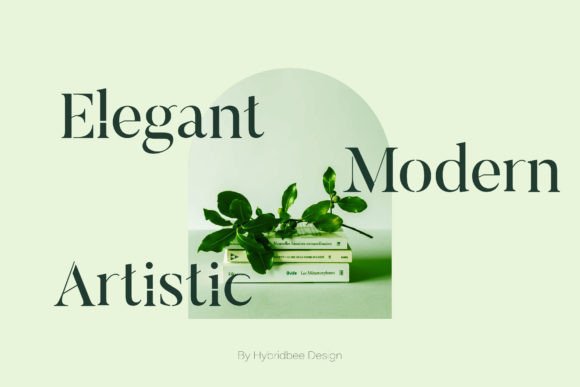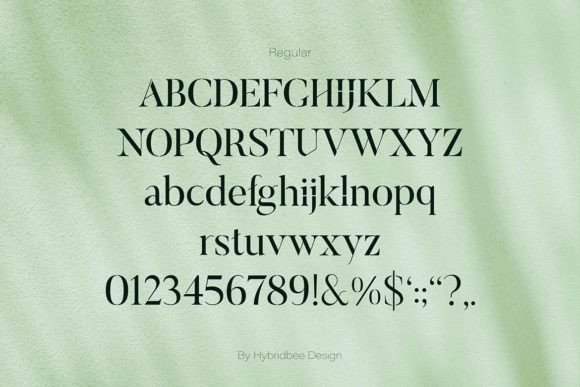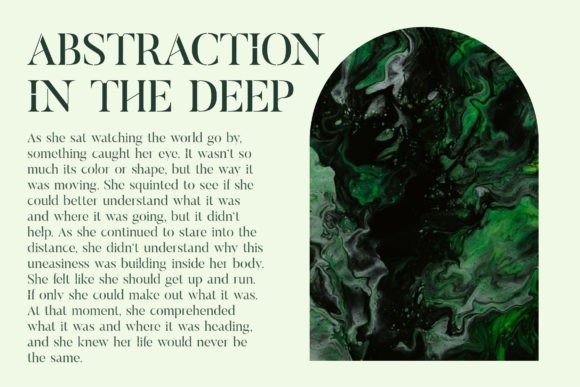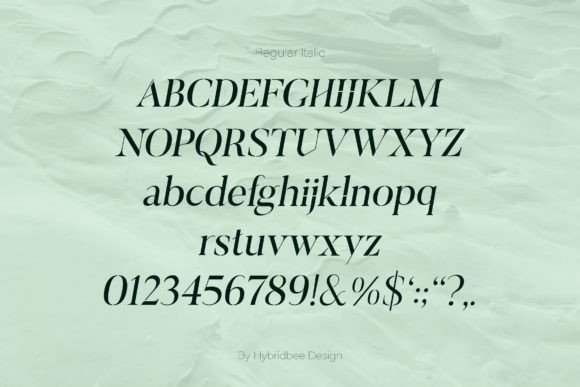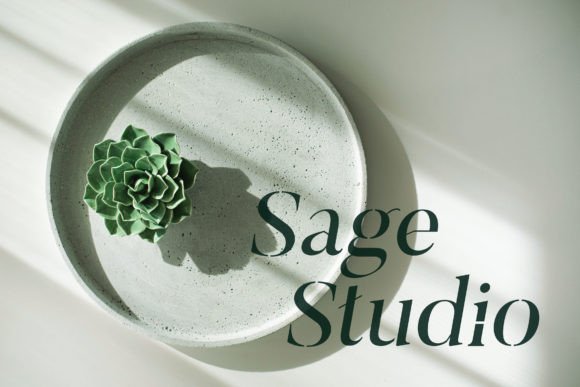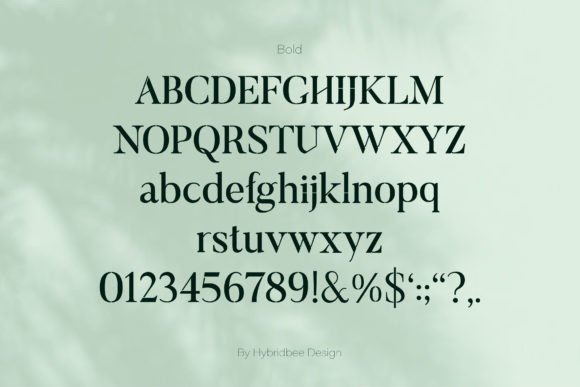
Introducing Elayne Font: Elevate Your Designs with Modern Sophistication
In the world of typography, fonts play a crucial role in conveying the tone and personality of a design. For designers and crafters seeking a modern, sophisticated, and artistic edge, Elayne Font is an exceptional choice. This display serif font boasts a minimalist and elegant style, making it perfect for a wide range of applications, from posters and headlines to branding, packaging, logos, and web design.
What Makes Elayne Font Stand Out?
Elayne Font’s unique blend of modernity and sophistication sets it apart from other fonts. Its display serif characteristics add a touch of elegance, while its minimalist approach ensures that the font remains clean and uncluttered. This balance of style and simplicity makes Elayne Font an excellent choice for designers looking to create visually stunning designs that exude refinement.
Key Features of Elayne Font
- Modern and Sophisticated: Elayne Font’s sleek design makes it perfect for projects that require a contemporary look and feel.
- Minimalist and Elegant: The font’s clean lines and simple shapes create a sense of elegance, ideal for high-end branding and design projects.
- Display Serif: Elayne Font’s serif characteristics add a touch of sophistication, making it suitable for headlines, titles, and other display text.
- Versatile: This font can be used for a wide range of applications, including posters, branding, packaging, logos, web design, and more.
Use Cases for Elayne Font
Elayne Font’s versatility makes it an excellent choice for various design projects. Here are some use cases where this font truly shines:
- Posters and Flyers: Elayne Font’s bold and elegant style makes it perfect for creating eye-catching posters and flyers.
- Branding and Logo Design: The font’s sophisticated and modern look makes it an excellent choice for branding and logo design projects.
- Packaging Design: Elayne Font’s clean and minimalist style makes it suitable for packaging design, particularly for luxury brands.
- Web Design: This font can be used to create stunning website headers, titles, and other display text.
Tips for Using Elayne Font Effectively
To get the most out of Elayne Font, follow these tips:
- Pair with Other Fonts: Combine Elayne Font with other fonts to create a unique and visually appealing typography.
- Experiment with Sizes: Play with different font sizes to create a hierarchy of text and add emphasis to important information.
- Use for Headlines: Elayne Font is perfect for headlines and titles, so use it to create attention-grabbing text.
Elayne Font is a stunning display serif font that offers a modern, sophisticated, and artistic edge. Its minimalist and elegant style makes it perfect for a wide range of design projects, from posters and branding to packaging and web design. With its versatility and unique characteristics, Elayne Font is an excellent addition to any designer’s toolkit.
Whether you’re a seasoned designer or a crafty DIY enthusiast, Elayne Font is sure to elevate your designs and help you create visually stunning projects that exude refinement and sophistication.